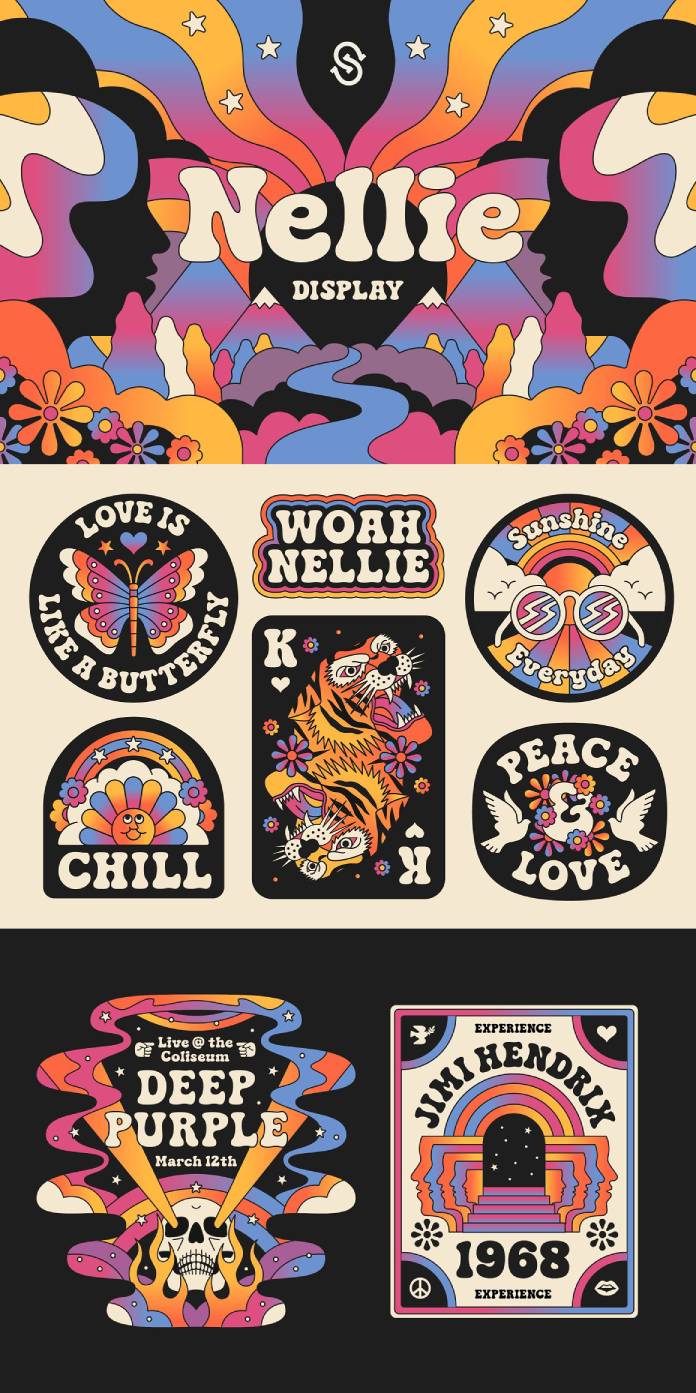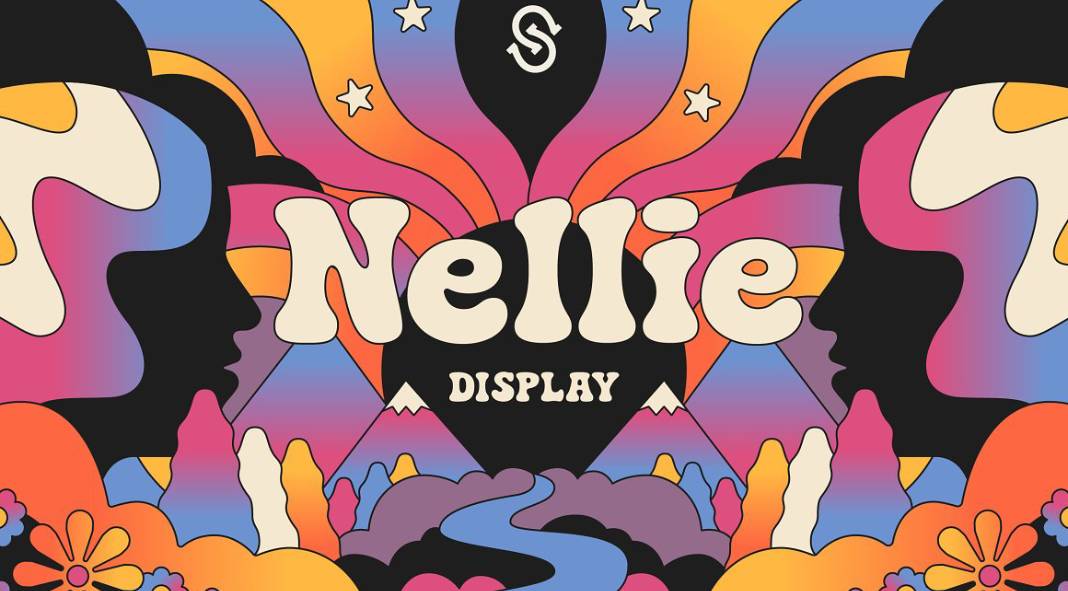
Check out Nellie, a fun retro display font inspired by the 1960s hippie era.
Am I on LSD or is it the typeface? Designed by foundry Stable, Nellie is a fun retro font for display usage. It’s very obvious that this font is inspired by the hippie era of the 60s. Nellie has an unconventional, somewhat psychedelic characteristic.
Introducing Nellie is a bold, friendly, and playful typeface perfect for any 60s or 70s-inspired design. Boasting uppercase letters, lowercase letters, numbers punctuation as well as several illustrated dingbats (simply visit the glyph panel of your desired program to access them). Get creative with Nellie today!